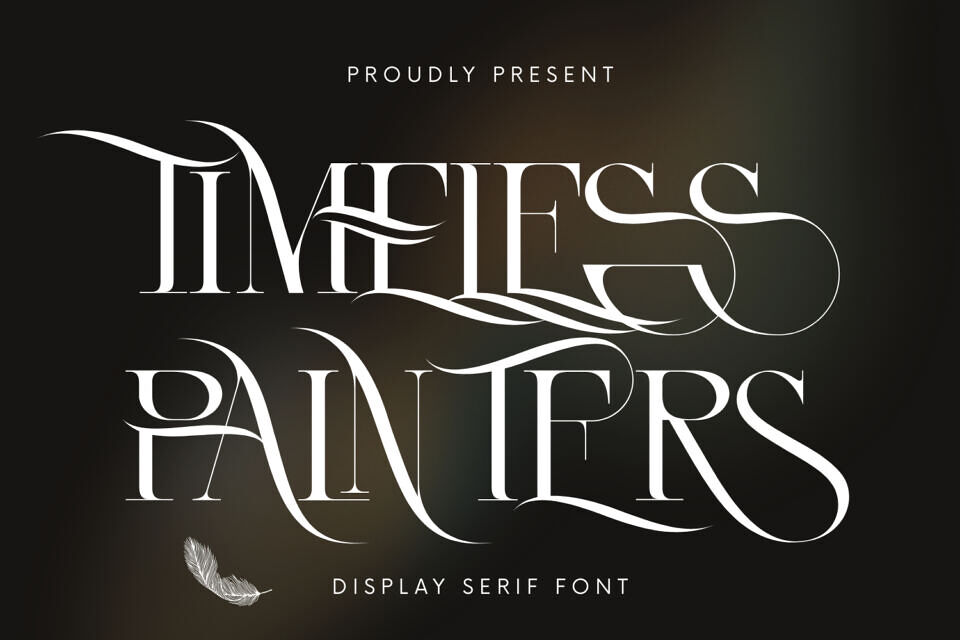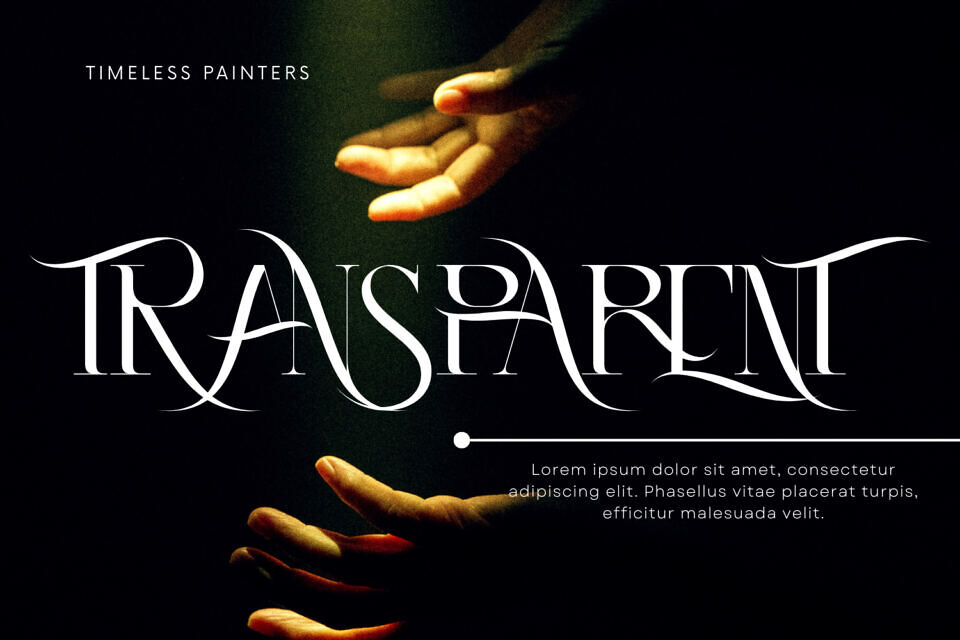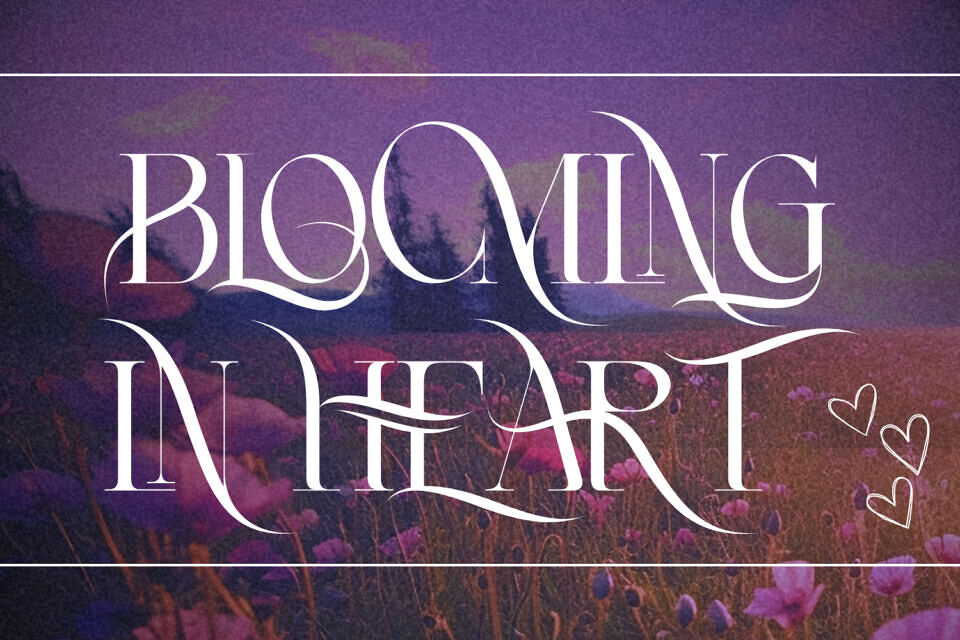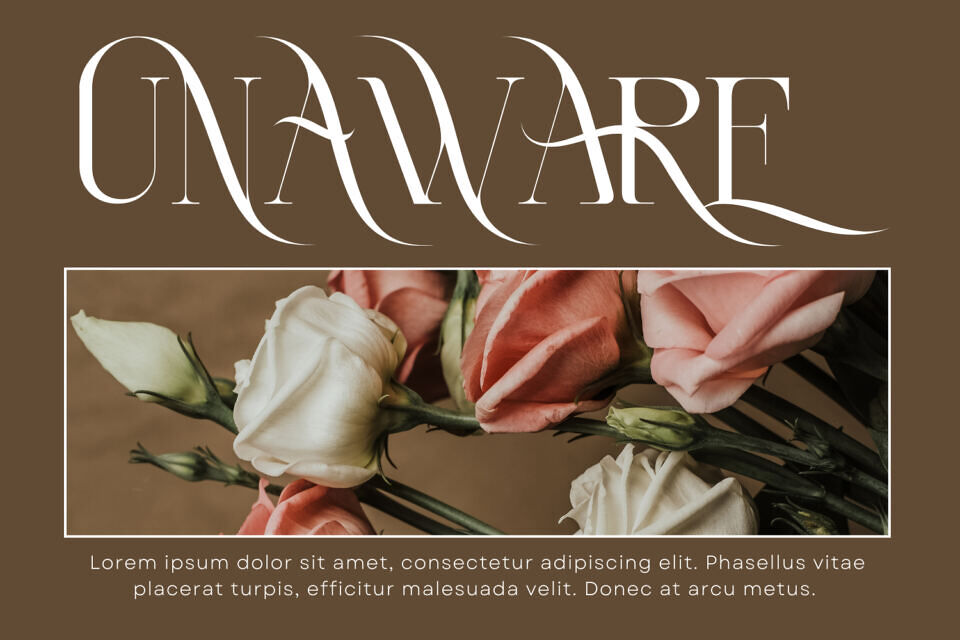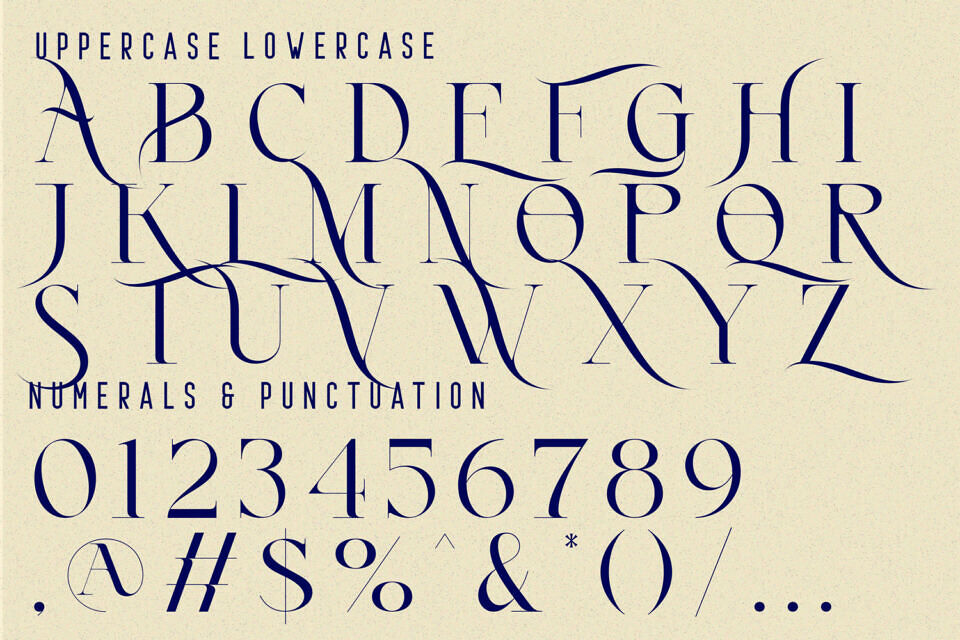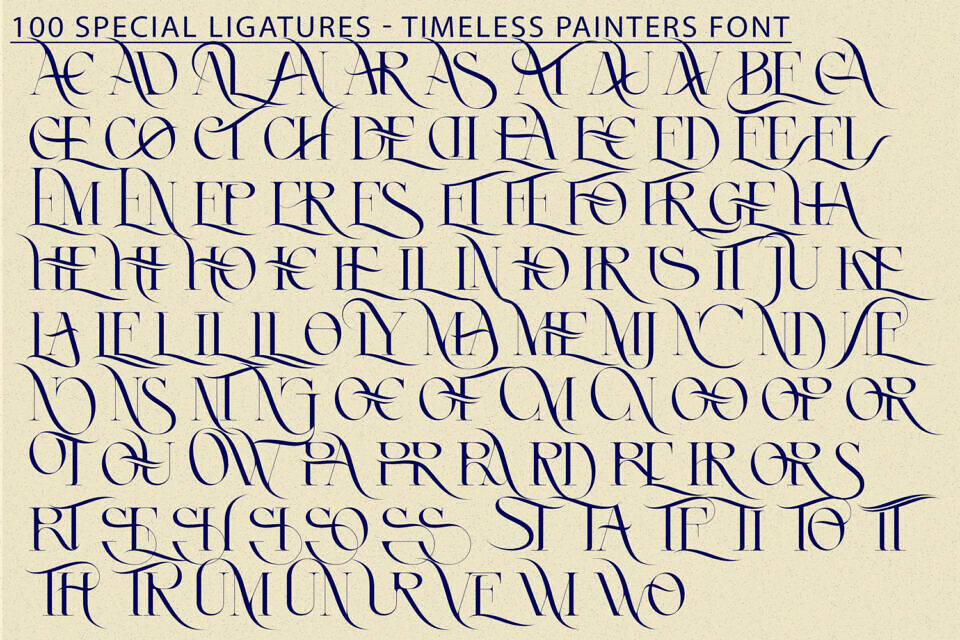
Timeless Painters Font
Timeless Painters is a refined serif display typeface that blends timeless elegance with artistic expression. Featuring high contrast strokes, razor-sharp serifs, and beautifully extended swashes, this font captures the sophistication of classical typography while adding a modern, luxurious twist.
Its graceful curves and dramatic letterforms make it perfect for high-end branding, editorial headlines, wedding invitations, luxury packaging, and artistic projects. Designed with attention to detail, Timeless Painters offers over 100 special ligatures for seamless letter connections, giving every word a harmonious and custom-crafted look.